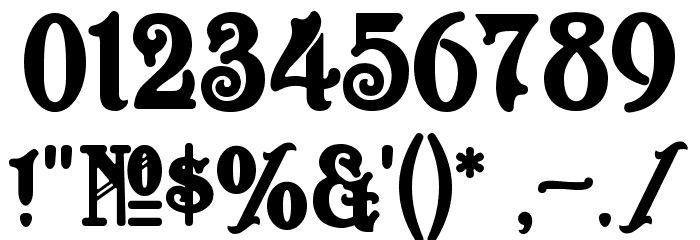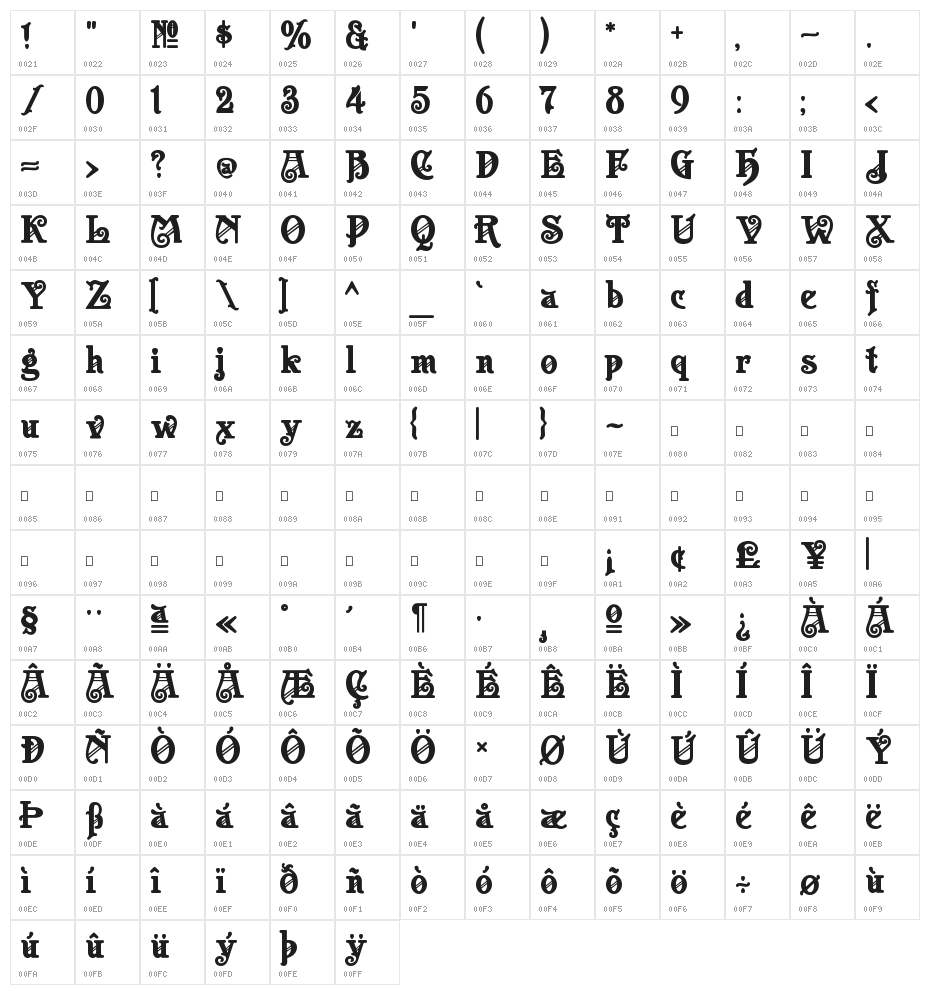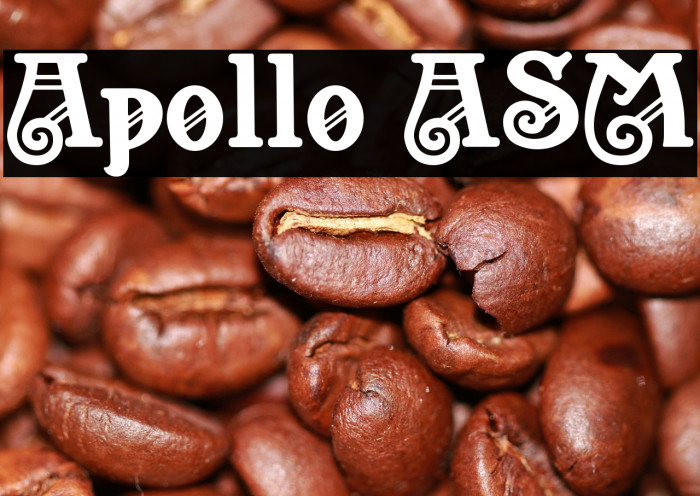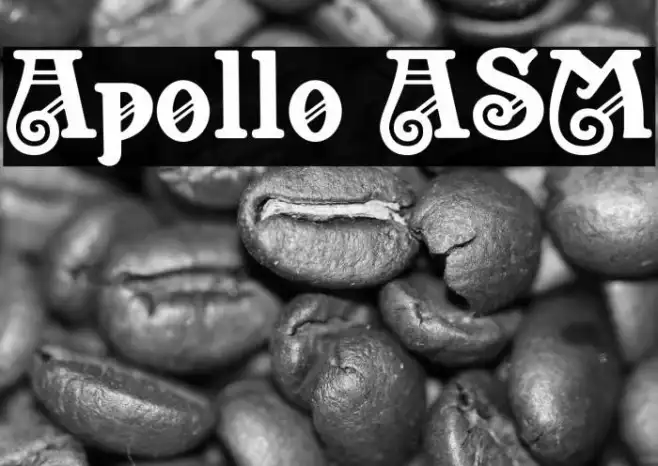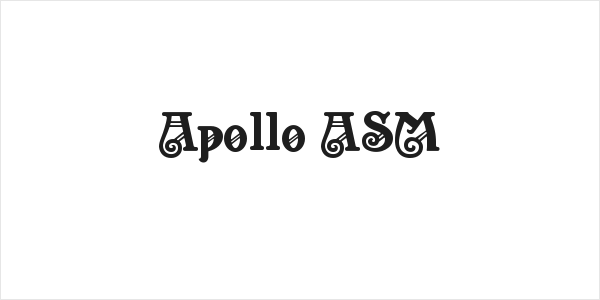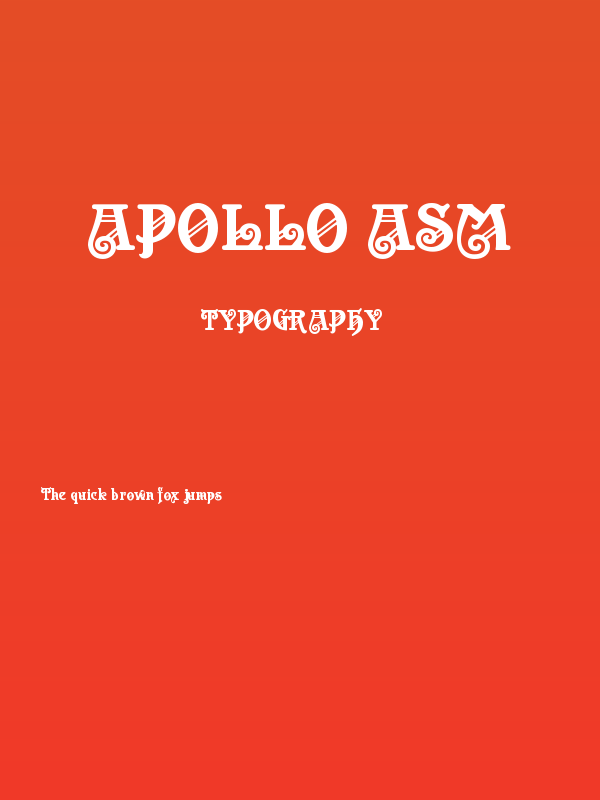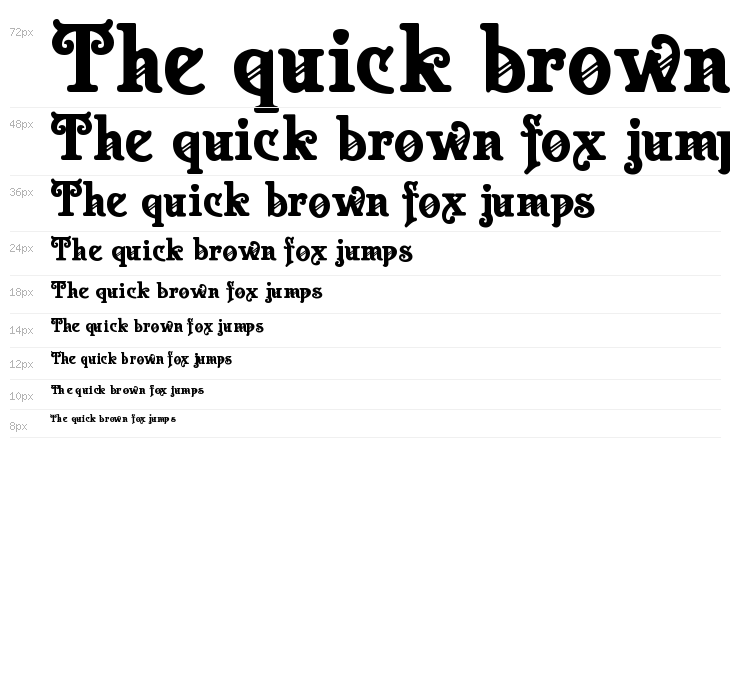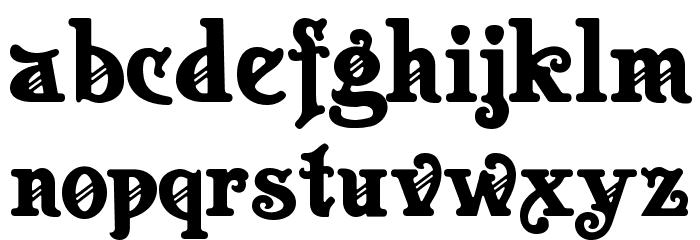
Apollo ASM Font
Apollo ASM Description
This font features a decorative and ornate style, characterized by intricate swirls and embellishments on each letter. The uppercase letters exhibit a bold and dramatic flair, with unique curls and loops that add a sense of whimsy and elegance. The lowercase letters maintain a consistent style, with rounded forms and playful details. Numbers and special characters follow the same ornate design, ensuring a cohesive look across all elements. The overall appearance is bold and eye-catching, making it suitable for projects that require a touch of sophistication and creativity.